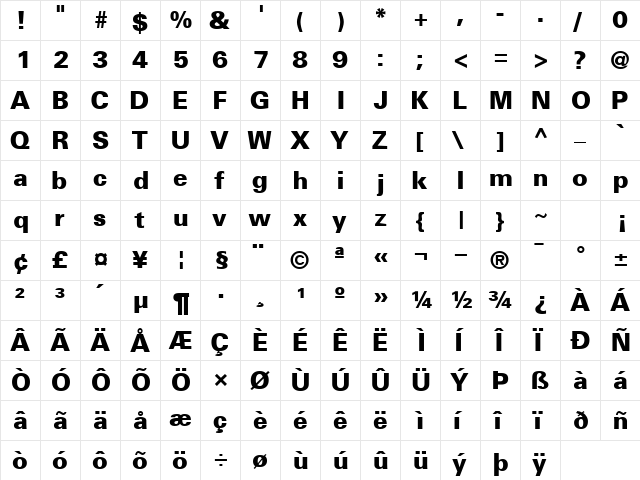
NovaBlackSSK Bold
Design Context for NovaBlackSSK Typeface
NovaBlackSSK offers clean, dependable letterforms without strong stylistic allegiance, making it a practical choice for designers who need flexibility. Its bold stroke weight gives it real presence on the page.